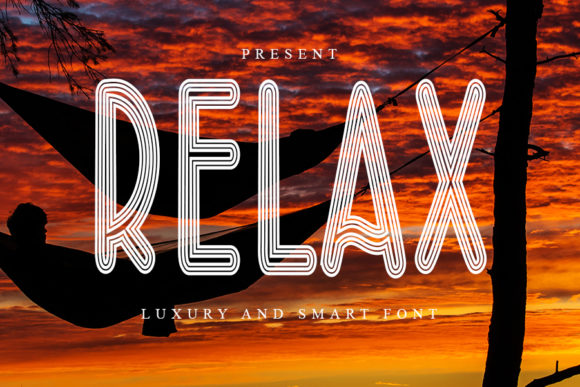
Prepare yourself to embark on a typographic adventure with Relax Font, an awe-inspiring creation from the brilliant minds at FL Space!
Unleash your imagination and let your creativity soar with this remarkable display font. Its bold and unique characteristics will effortlessly elevate your designs, making them stand out from the crowd.
Relax Font radiates undeniable cool style, captivating audiences with its trendy, contemporary charm. It's the perfect choice for ambitious entrepreneurs seeking to make a lasting impression. Fashion forward and brimming with personality, this font speaks volumes about your brand's unique identity.
Its unparalleled flexibility adapts seamlessly to a myriad of design applications, from captivating business cards that command attention to stunning logos that exude professionalism. Embrace the endless creative possibilities and let your vision come alive!
Immerse yourself in the world of Relax Font and discover a symphony of design possibilities. Its versatility knows no bounds, catering to a wide spectrum of creative endeavors.
With Relax Font as your trusty companion, you hold the power to transform ordinary designs into captivating masterpieces. Its bold strokes and striking presence add an irresistible touch of sophistication, leaving an unforgettable impression on your audience.
Don't settle for ordinary fonts. Choose Relax Font and elevate your designs to new heights. Its captivating beauty and unwavering versatility will captivate your audience, leaving them in awe of your creations.